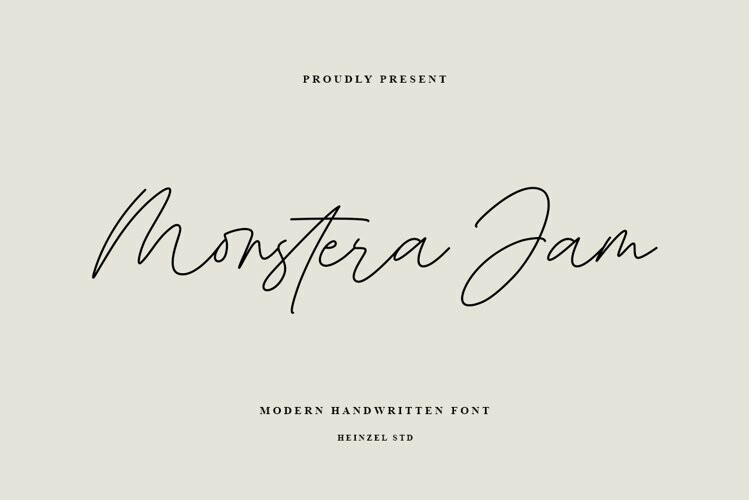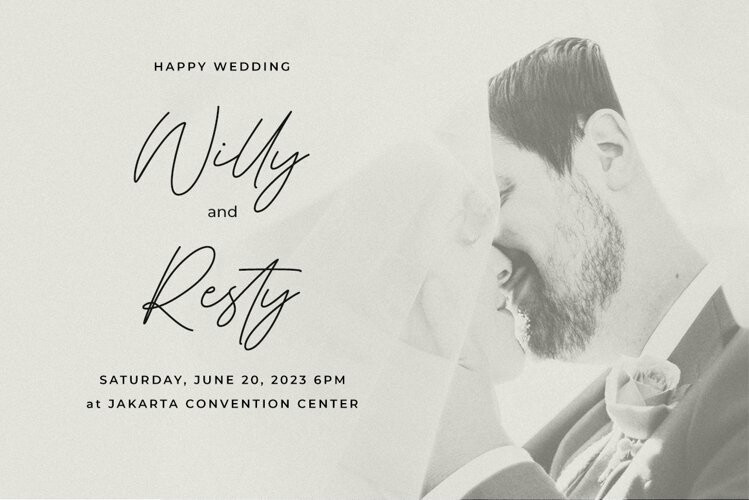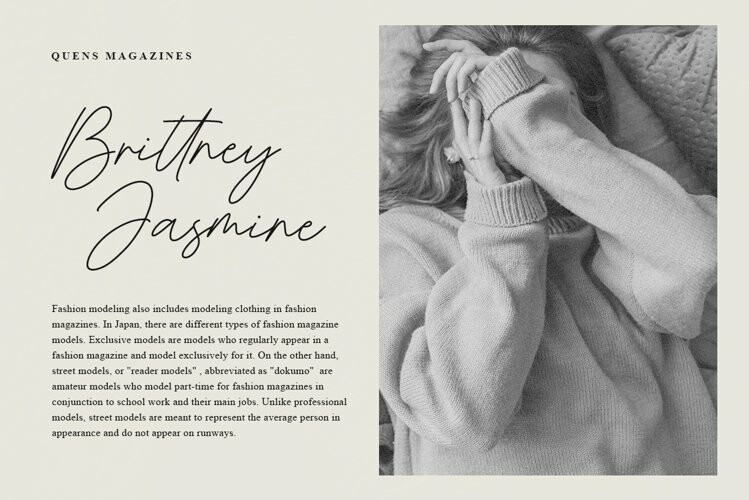
Monstera Jam – Modern Script Font
Monstera Jam - Modern Script FontMonstera Jam is a fancy handwritten font, described by an elegant touch, perfect for your favorite projects. It looks stunning on wedding invitations, thank you cards, quotes, greeting cards, logos, business cards,social media design, marketing materials and every other design which needs a handwritten touch. Fall in love with its incredibly distinct and timeless style and use it to create spectacular designs!